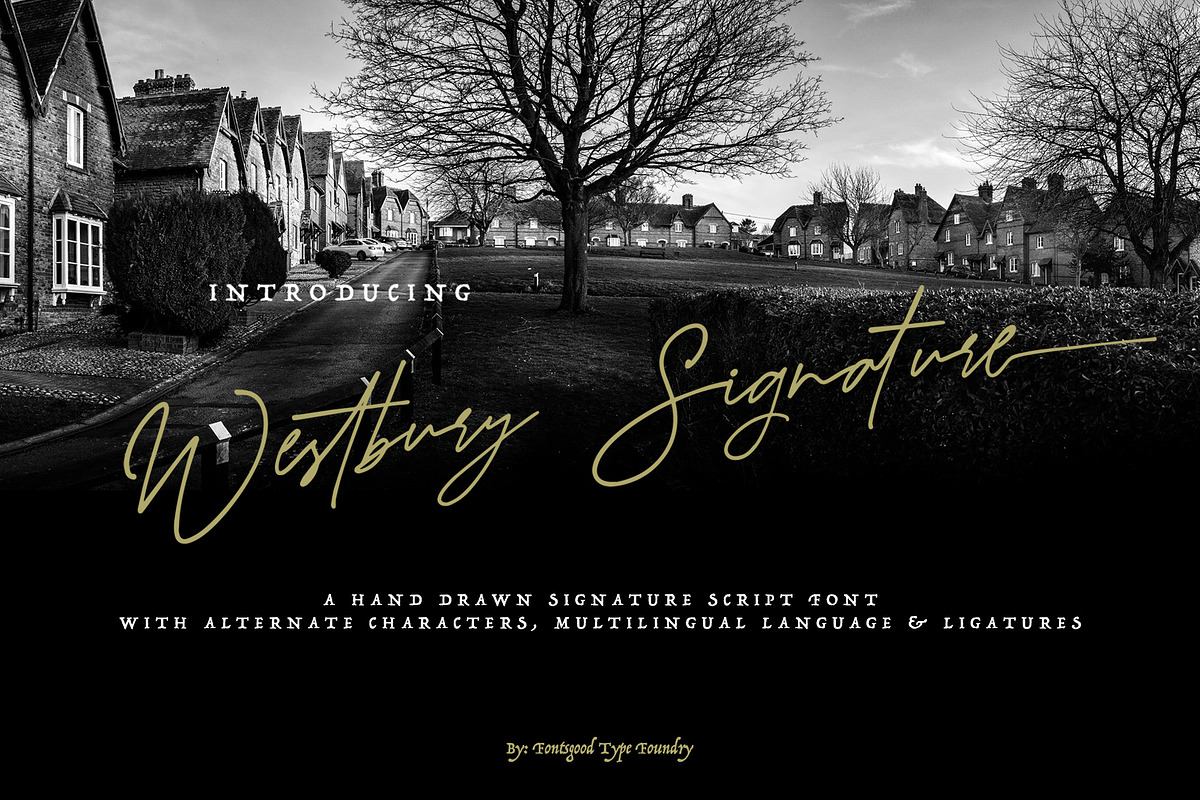
The Westbury Signature Font Free Download is an elegant and stylish handwritten typeface designed to mimic a natural, personal signature. Ideal for luxury branding, fashion logos, wedding invitations, social media content, and high-end stationery, this font adds a refined, handcrafted touch to your designs.
With smooth, flowing lines and sophisticated curves, Westbury delivers both beauty and professionalism. It includes uppercase and lowercase letters, ligatures, alternates, punctuation, and multilingual support—providing everything you need to create polished and expressive typography.